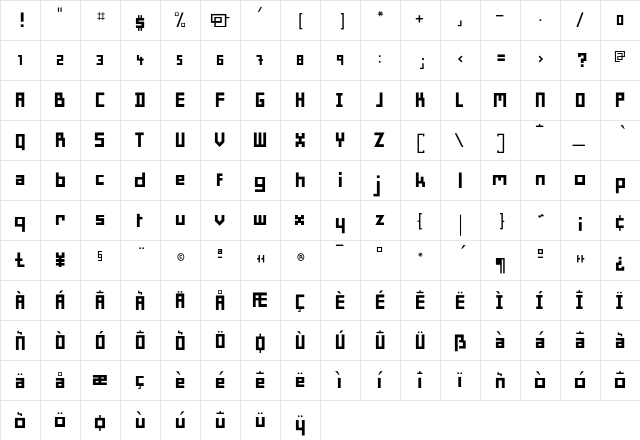
Minimum ANoir
Design Context for Minimum Typeface
Minimum is a composed and adaptable typeface that performs quietly and consistently across a wide range of design contexts.